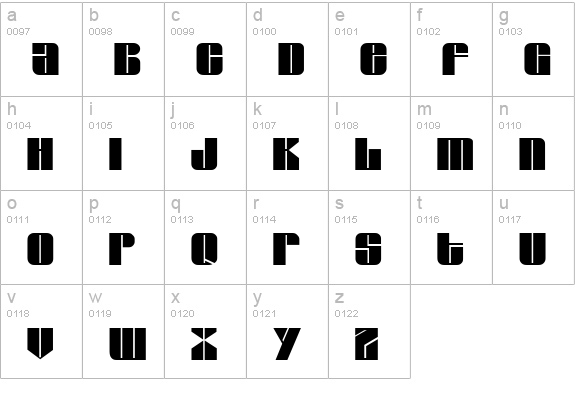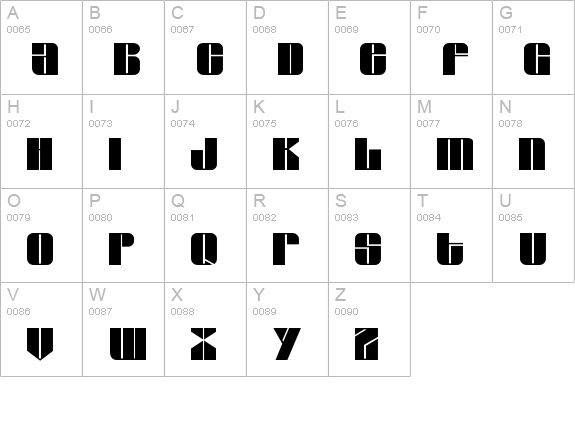
Glyphic Regular is the standard, neutral variant in the Glyphic typeface family \xE2\x80\x94 well suited to general body text, paragraphs, and standard typographic work.
Glyphic Regular is a timeless and elegant font that exudes sophistication and professionalism. With its clean lines and classic design, this typeface is perfect for a wide range of projects, from branding to editorial design. The sleek and versatile characters of Glyphic Regular make it a standout choice for both digital and print applications. And the best part? Glyphic Regular is available for free download at FontsMarket.com. Simply head over to the website and grab this stunning font to elevate your designs to the next level. Don't miss out on the opportunity to add Glyphic Regular to your font collection today!